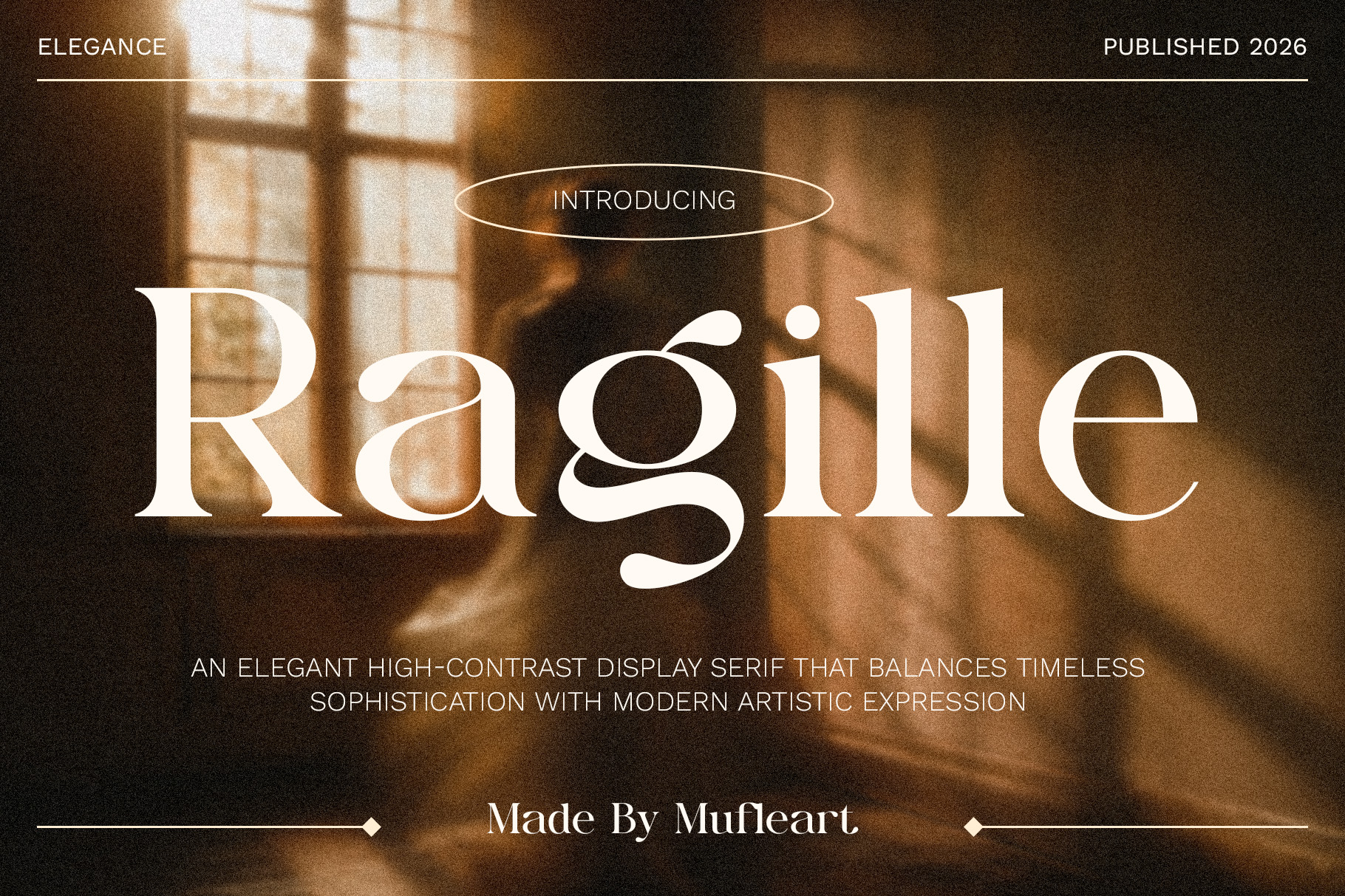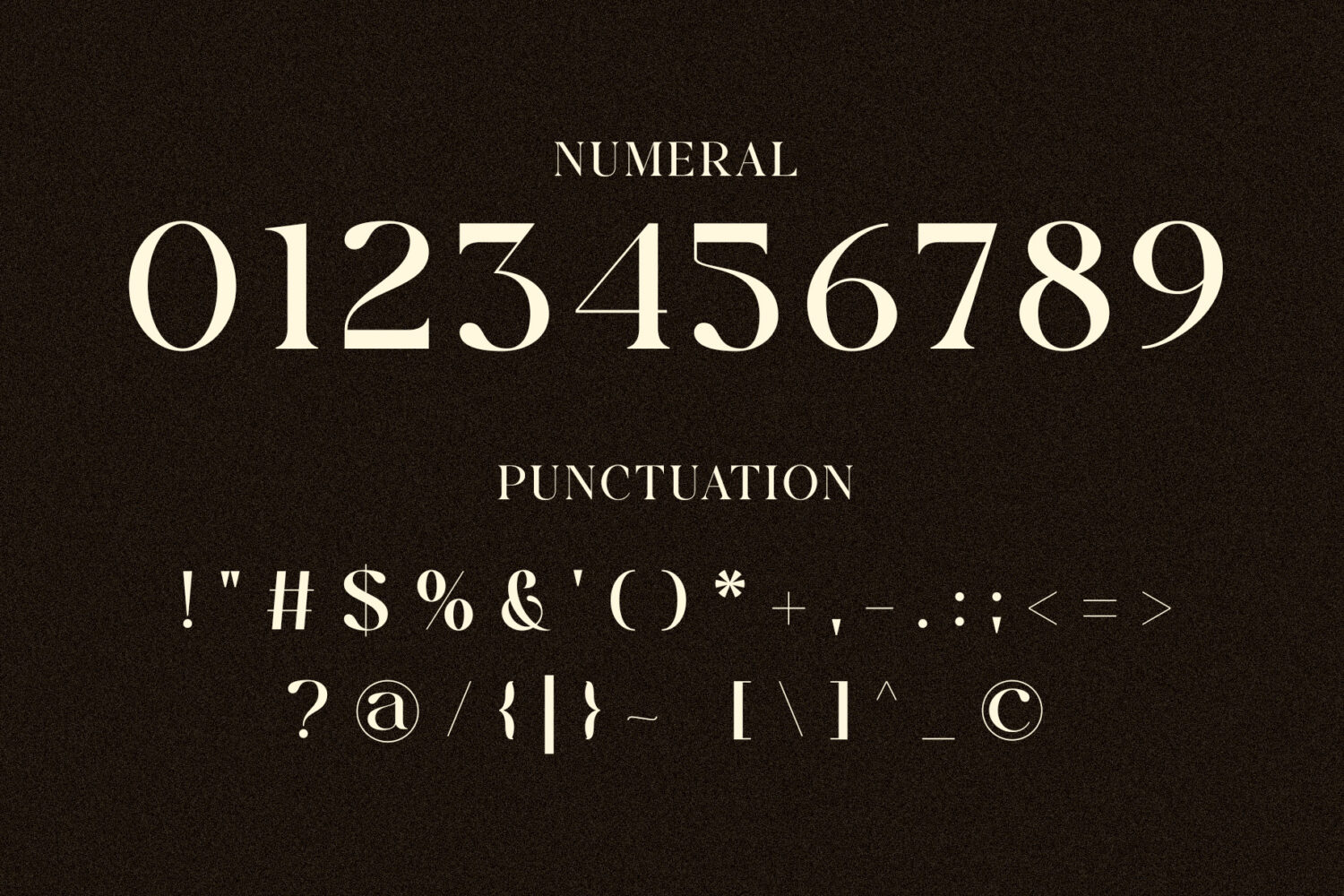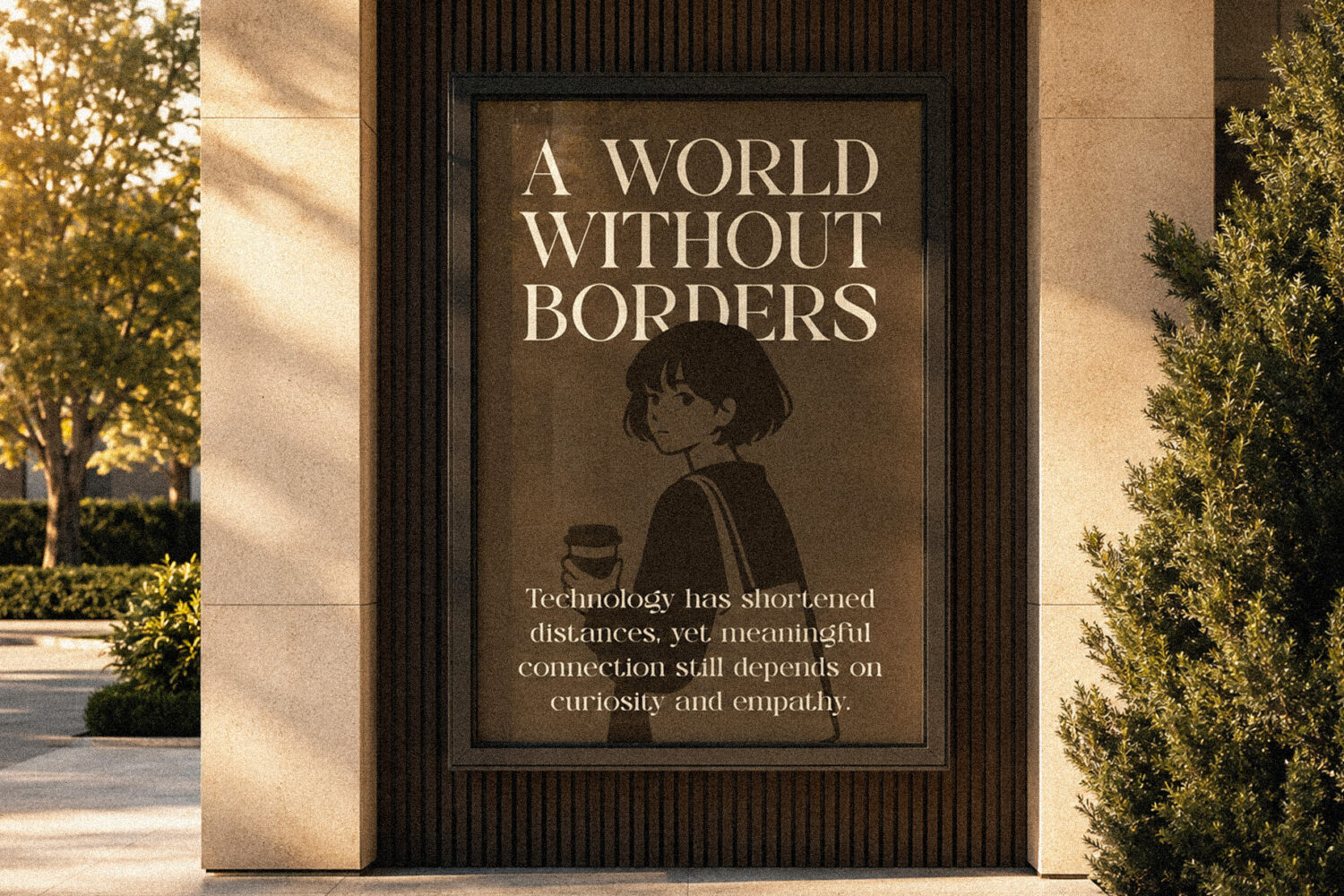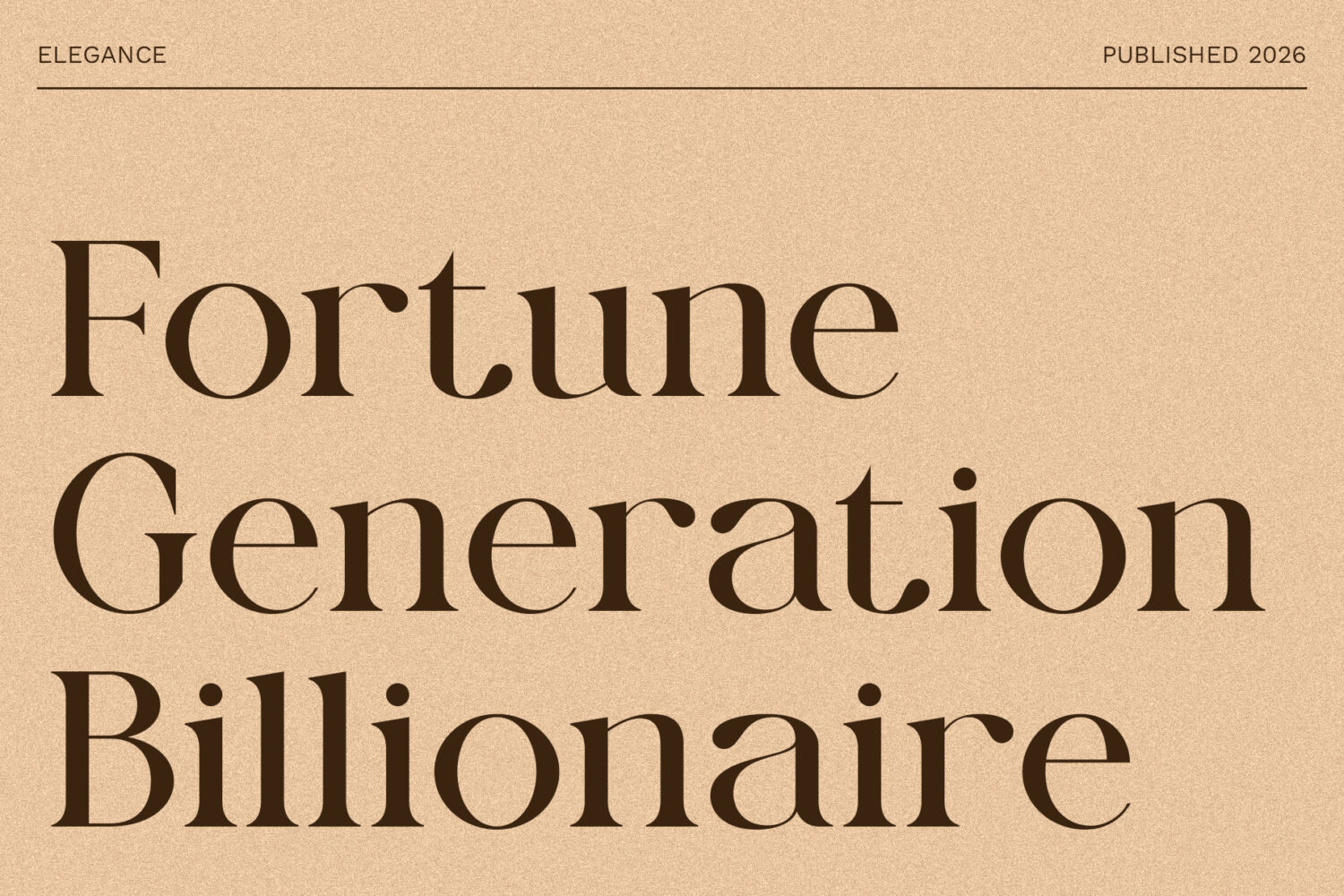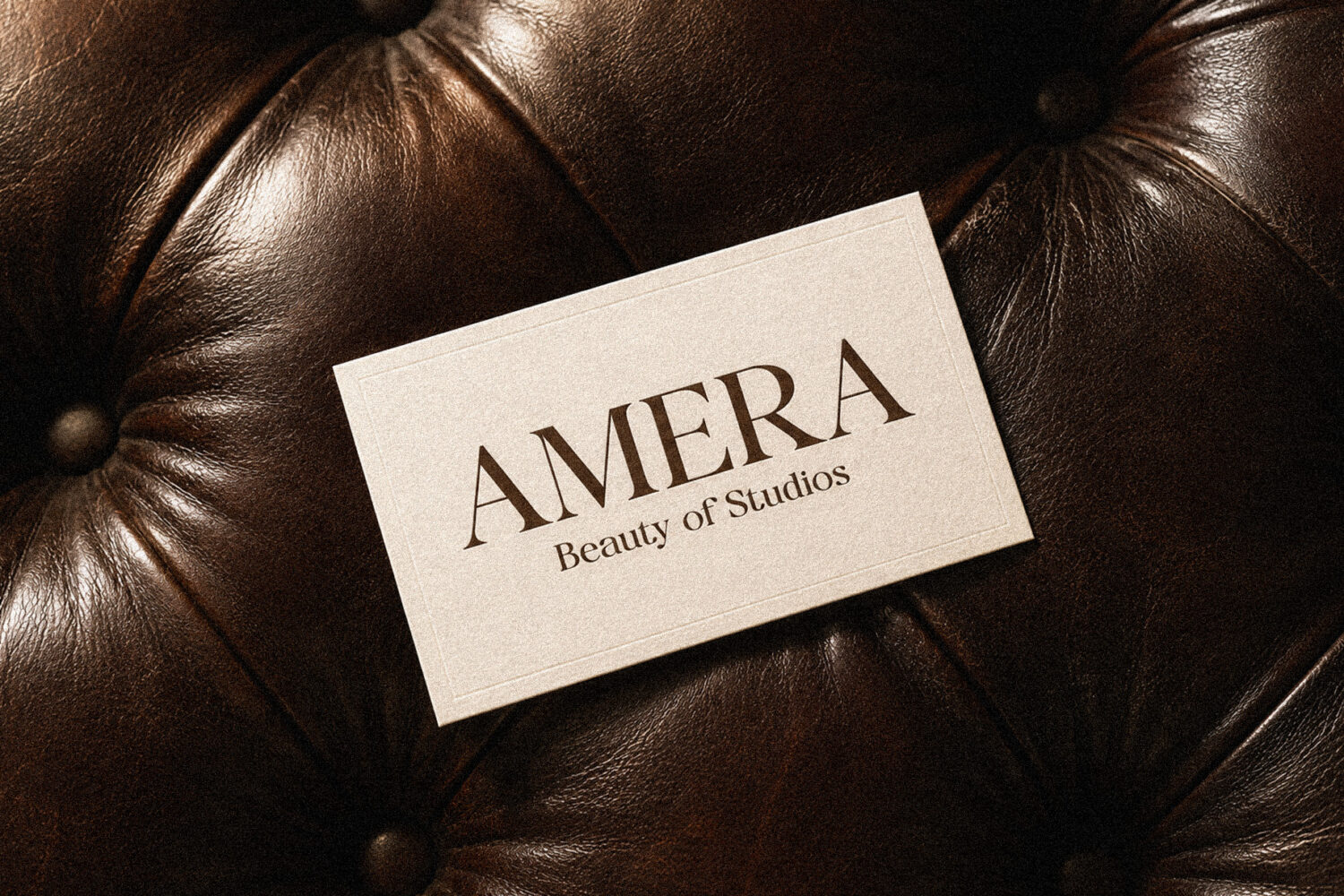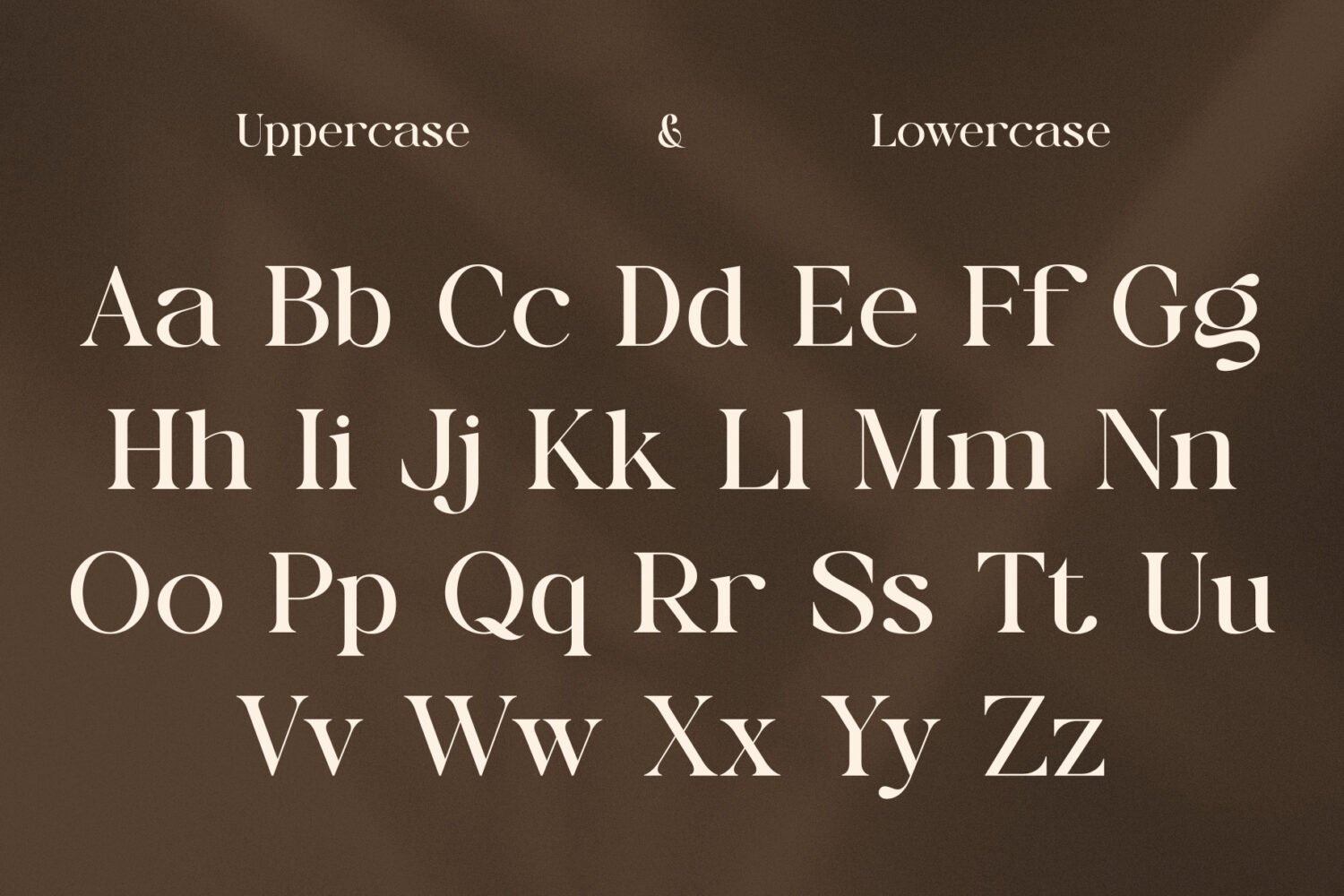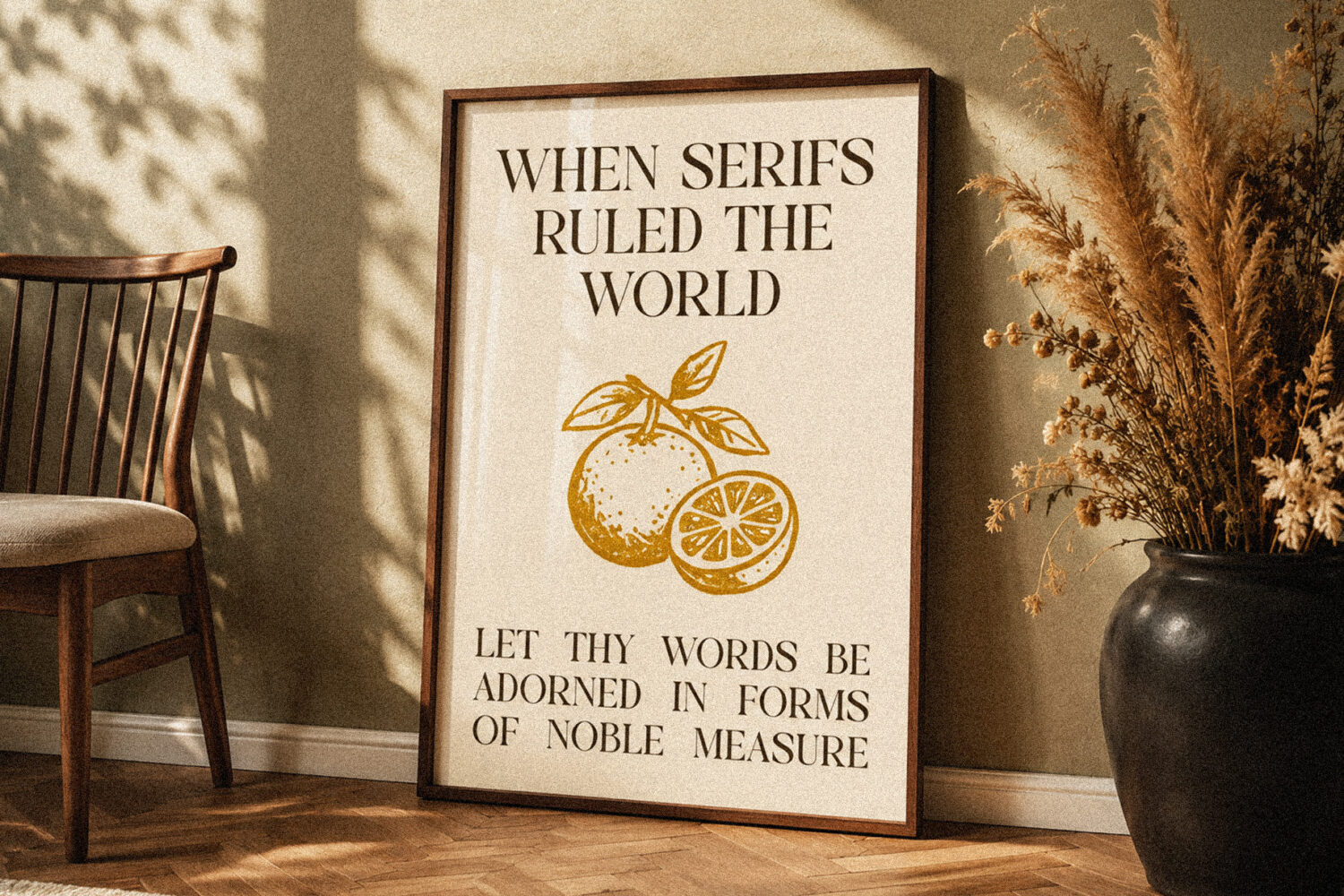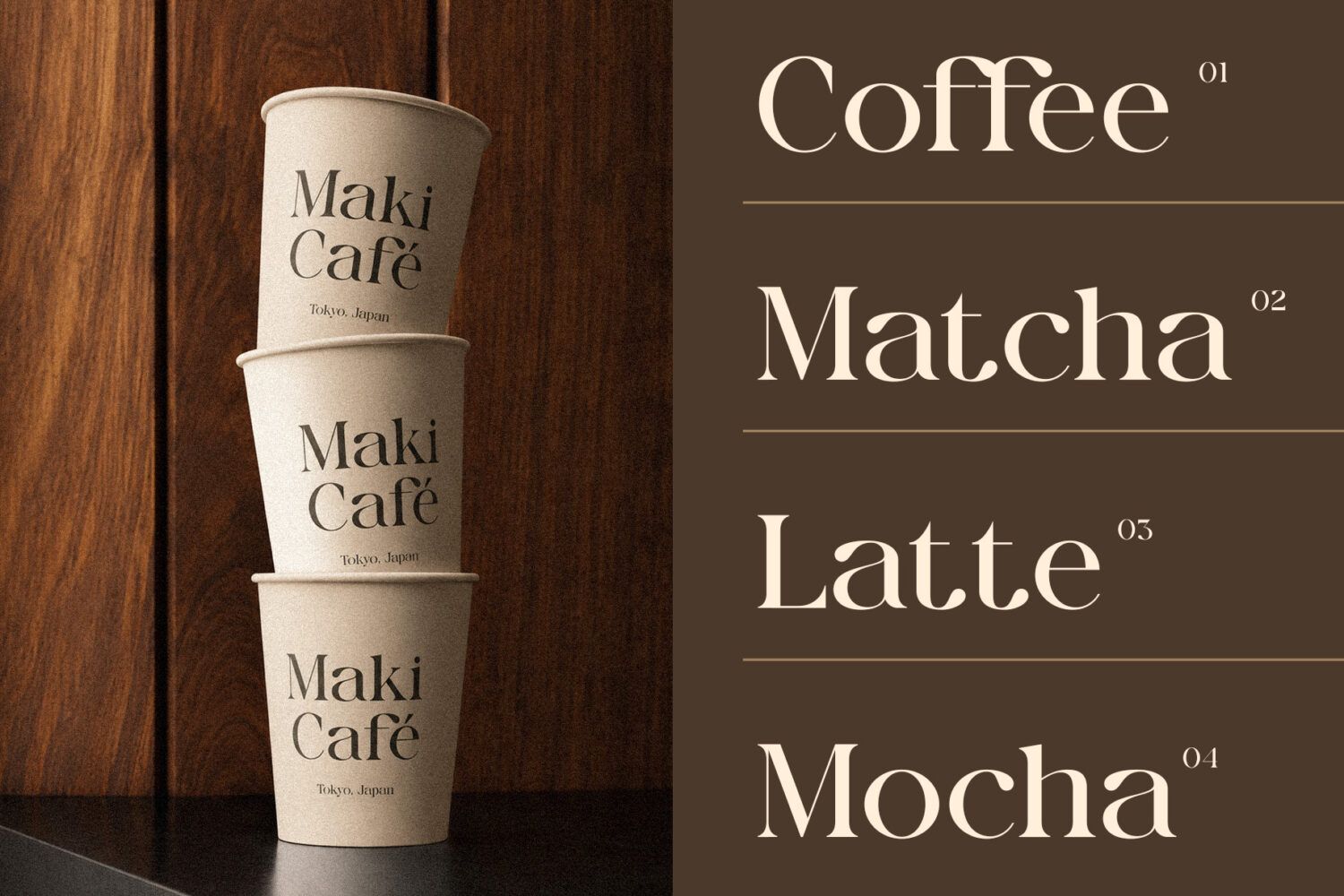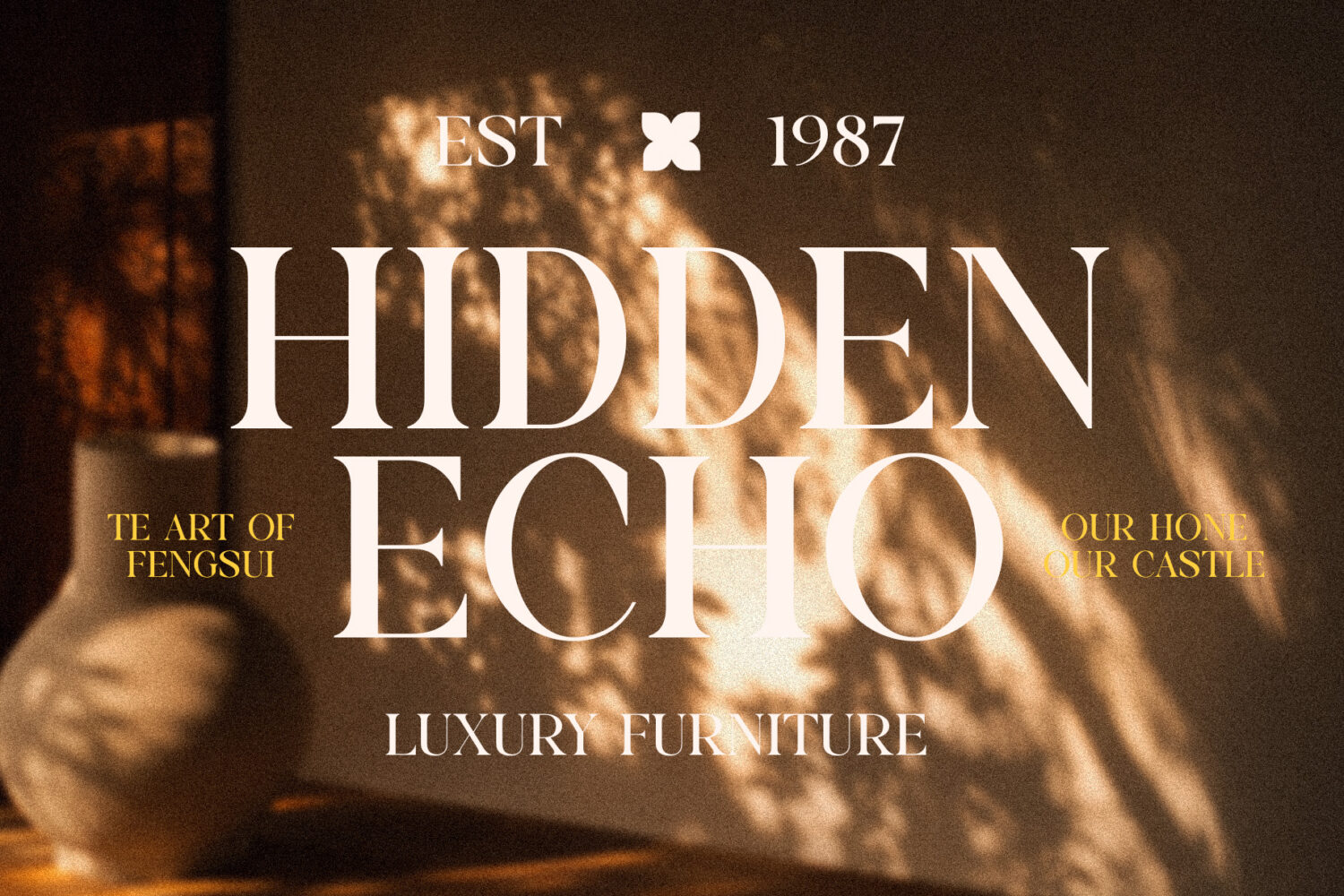
Ragille
Introducing **Ragille** the elegant, beautiful, and modern Serif. With its modern and minimalist look, Ragille brings a luxurious, classy, ​​and clean style to your projects such as websites, modern logos, brand identities, social media quotes, wedding stationery, magazines, and more!
Ragille features unique and classy capital letters A to Z and also comes making GinkerGlower a beautiful font that can be customized for various projects and jobs you want.
Ragille is perfect for: logos, brands, wedding invitations, business cards, greeting cards, posters, magazines, social media, agenda prints, and websites.
Ragille – Elegant Display Serif Font